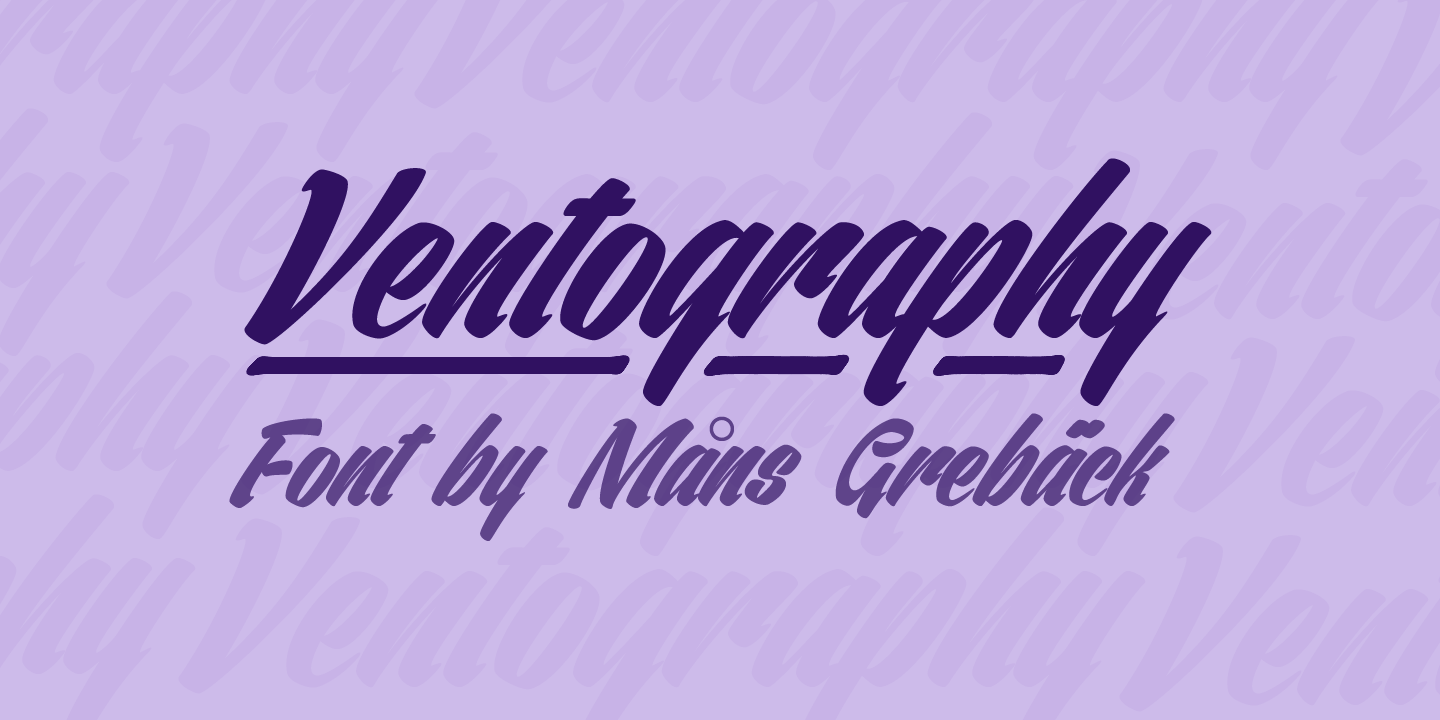
Ventography Font is perfect for photography studio branding, creative portfolios, artistic exhibition materials, visual arts education, modern gallery signage, contemporary art publications, photographer business cards, and innovative visual media campaigns. This artistic typeface brings photographic precision and creative vision to any design project celebrating visual storytelling and the artistic excellence of contemporary photography.
What makes Ventography Font exciting is its sophisticated fusion of photographic precision with artistic creativity that perfectly captures the technical expertise and creative vision required in professional photography and visual arts. The refined letterforms feature visual balance and compositional harmony that create an unmistakably artistic appearance. Each character frames with photographic precision, making it ideal for brands that represent visual excellence, creative storytelling, and the artistic mastery of capturing perfect moments through the lens.
The Ventography Font family typically includes multiple weights from light to bold with complete uppercase and lowercase letters, numbers, punctuation marks, and photography symbols. Many versions feature additional visual arts decorative elements, camera-inspired motifs, and creative symbols that enhance the photographic aesthetic and provide creative flexibility for visual arts and media design applications.
Whether you're developing photography business brands or creating visual arts materials, Ventography Font Free Download offers unmatched artistic authority and photographic sophistication. This creative typography choice transforms ordinary text into visual statements that resonate with audiences appreciating photographic artistry and creative excellence. The font's artistic construction ensures exceptional performance across visual media applications while maintaining its distinctive photographic character that makes every design project feel like a perfectly composed photograph where technical precision meets creative vision in professional visual storytelling.